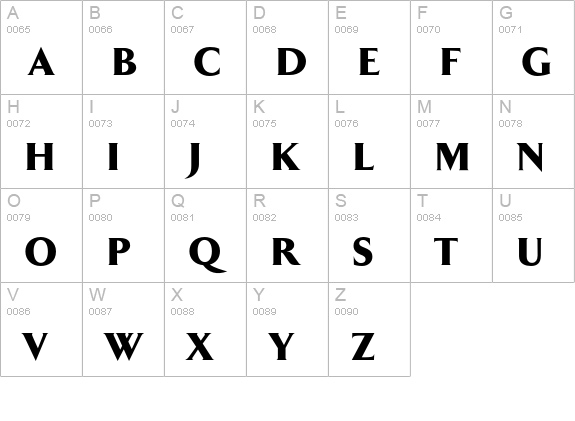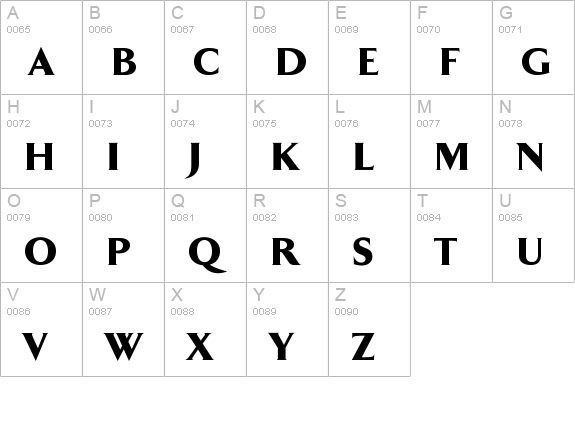
ArrowBlack Font Details
Introducing ArrowBlack font, a sleek and modern typeface that exudes sophistication and elegance. With its sharp lines and bold appearance, ArrowBlack is perfect for making a statement in your designs. This versatile font can be used for a variety of projects, from branding to headlines to social media graphics. What's even better is that ArrowBlack is available for free download at FontsMarket.com. This means you can easily access this stunning font and incorporate it into your creative endeavors without any cost. Don't miss out on the opportunity to add ArrowBlack to your font collection today!